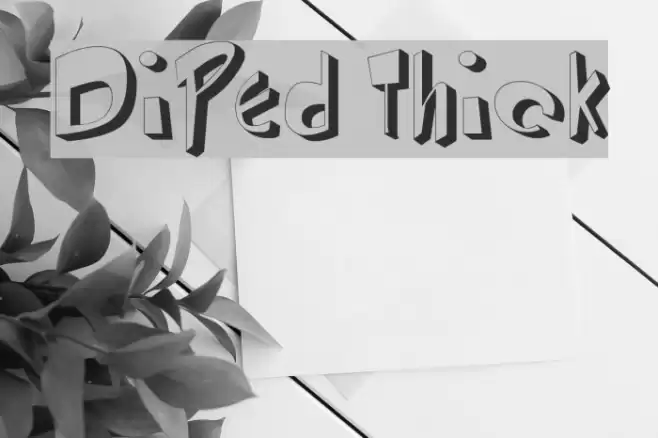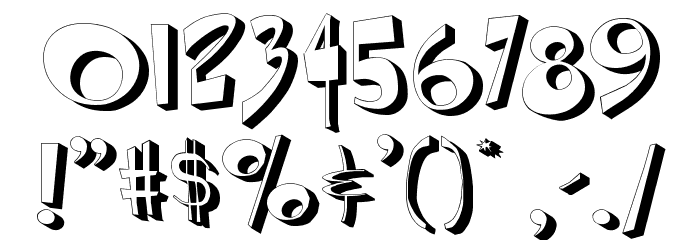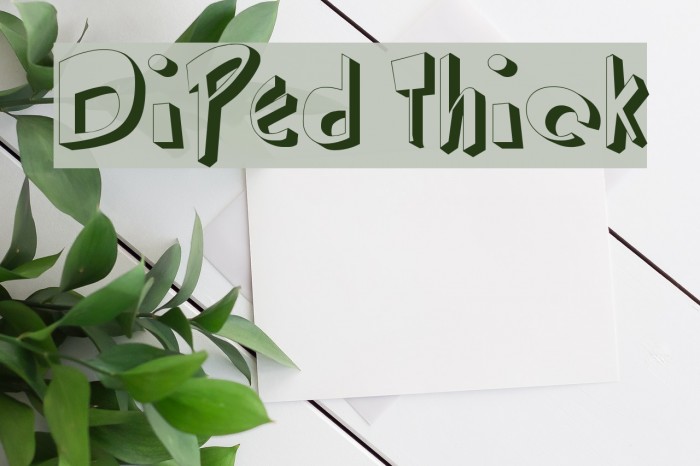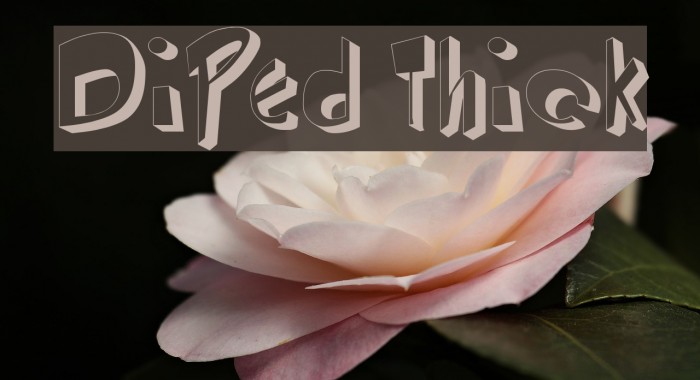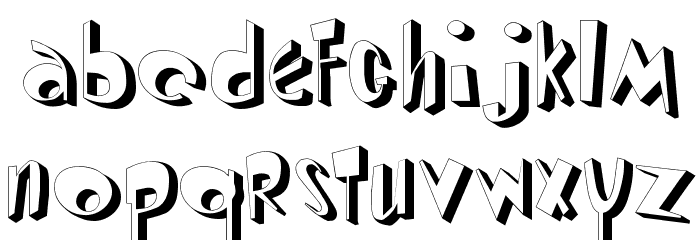
DiPed Thick Font
DiPed Thick Description
This font features a bold, three-dimensional style with a playful and dynamic appearance. The letters have a thick, shadowed outline that gives them a sense of depth and movement. Each character is uniquely crafted with varying angles and curves, creating a lively and energetic feel. The uppercase and lowercase letters maintain a consistent style, while the numbers and special characters complement the overall design. The font's distinctive look makes it suitable for eye-catching designs and creative projects.
A bold, three-dimensional font with a playful and dynamic style from Quirky fonts.
- Proposed Projects: Ideal for posters, headlines, comic book designs, and playful branding projects.